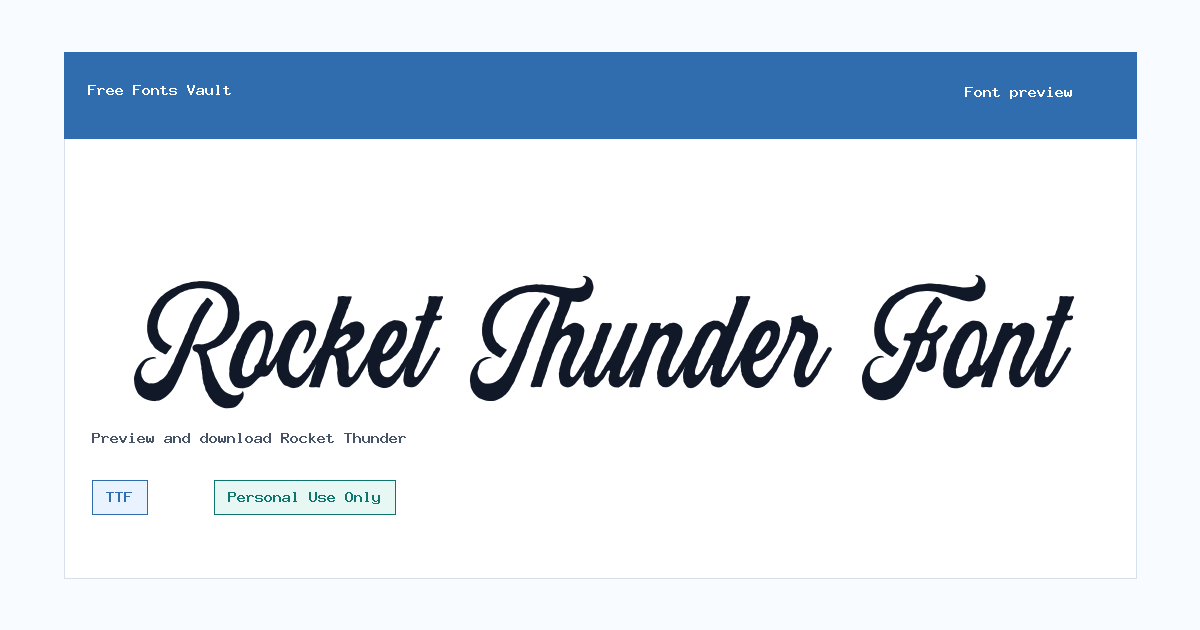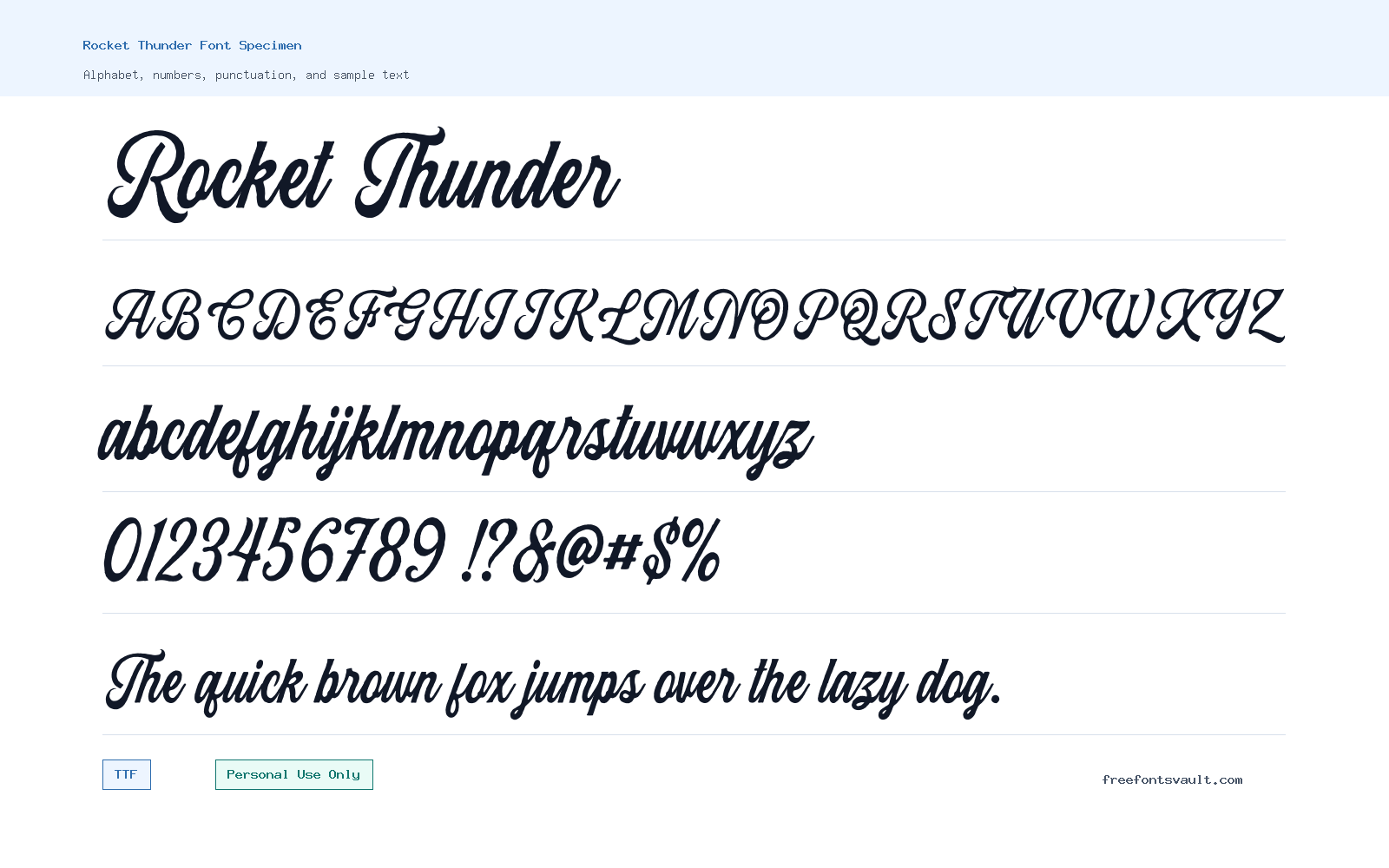
Rocket Thunder
- Designer Bangki Tri Setiadi
- Foundry Blankids Studio
Rocket Thunder font.
Rocket Thunder is a font duo with a script style and a matching shadow style, giving visitors a quick way to test both a main lettering look and a layered display effect.
About Rocket Thunder
Rocket Thunder is best approached as a display font rather than a long-text typeface. The family includes Rocket Thunder Script and Rocket Thunder Shadow in TTF format, so it is aimed at short, eye-catching words where the shape of the lettering matters more than paragraph readability. The script file can work as the main style for names, titles, and short phrases, while the shadow file gives you a bolder decorative option when you want extra contrast or a stacked sign-painting feel.
Use the preview box to test the exact text you plan to design with, especially if your project includes mixed uppercase and lowercase letters, numbers, or punctuation. Script fonts can change quickly depending on the word, so try a few short samples before downloading. Rocket Thunder should be most useful for compact layouts such as logo drafts, poster headings, sticker text, packaging mockups, social graphics, invitations, and other places where a few words need personality. For longer copy, pair it with a clean sans serif or simple serif so the decorative style does not have to carry the whole design.
- Font duo with separate Script and Shadow TTF files
- Display-friendly style suited to short words, headings, and decorative lettering
- Posters, stickers, and social media title graphics
- Logo concepts, product labels, and packaging mockups
- Invitations, event headings, and short decorative phrases
- Layered display designs using script and shadow styles together
Rocket Thunder is credited to Bangki Tri Setiadi and Blankids Studio, with the related website listed as blankidsfonts.com.
For the cleanest result, start with short text in the preview tool. Try the script style first, then test the shadow style as a separate accent or layer. Keep spacing generous, avoid very small sizes, and pair Rocket Thunder with a plain supporting font for descriptions, captions, menus, or body text.
What is Rocket Thunder best used for?
It is best for short display text such as posters, logos, labels, stickers, invitations, and social graphics. It is not ideal for long paragraphs.
Who designed Rocket Thunder?
Rocket Thunder is credited to Bangki Tri Setiadi, with Blankids Studio listed as the foundry.
How should I pair Rocket Thunder with another font?
Use Rocket Thunder for the main word or heading, then pair it with a simple sans serif or readable serif for smaller supporting text.